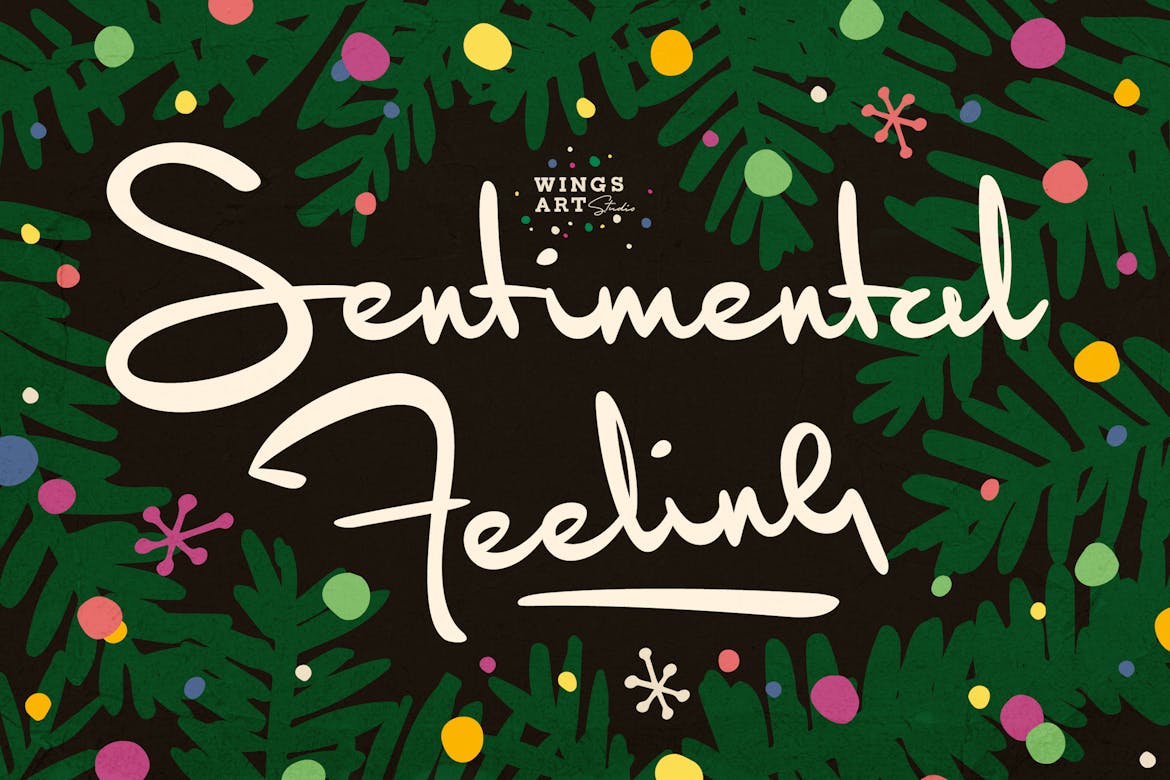
Sentimental Feeling - Christmas Font
This heartwarming font is ideal for nostalgic Christmas cards, family holiday newsletters, emotional seasonal letters, vintage Christmas scrapbooks, sentimental gift tags, heartfelt holiday journals, memory book designs, touching Christmas stories, warm family invitations, and intimate seasonal greeting designs.
Sentimental Feeling - Christmas Font is exciting because it captures the deeply emotional and nostalgic essence of Christmas memories, evoking feelings of warmth, love, and cherished family traditions. The font features gentle, flowing letterforms with soft edges and subtle imperfections that mirror the authenticity of handwritten letters from loved ones. Each character conveys a sense of intimacy and personal connection, as if penned by a dear family member sharing precious holiday memories. The typeface's organic curves and natural variations create an emotional resonance that touches hearts and brings back treasured Christmas moments from childhood and family gatherings.
The Sentimental Feeling - Christmas Font family includes emotionally rich variations: Regular, Light, Medium, Italic, and Vintage versions. The collection features special nostalgic elements including weathered textures, aged paper effects, vintage ornaments, and classic holiday decorations. Additional components include sentimental borders, memory-inspired frames, traditional Christmas symbols, and heartwarming decorative flourishes that enhance the font's emotional appeal.
When creating meaningful holiday communications, Sentimental Feeling - Christmas Font Free Download provides designers with the perfect tool for conveying genuine emotion and personal connection. This thoughtfully designed font transforms simple text into heartfelt messages that resonate with readers on a deeply personal level. The font's authentic character makes it ideal for projects that require emotional depth and sincere sentiment.
The typeface includes comprehensive language support and special characters for international family communications. The font's carefully balanced spacing and natural letter flow ensure comfortable reading while maintaining its handcrafted, personal appearance. Advanced typography features provide smooth text rendering across all platforms and media types.
Perfect for family Christmas projects, personal holiday communications, memory preservation, and sentimental seasonal designs, this font delivers authentic emotional impact that connects with audiences seeking genuine, heartfelt Christmas typography solutions.